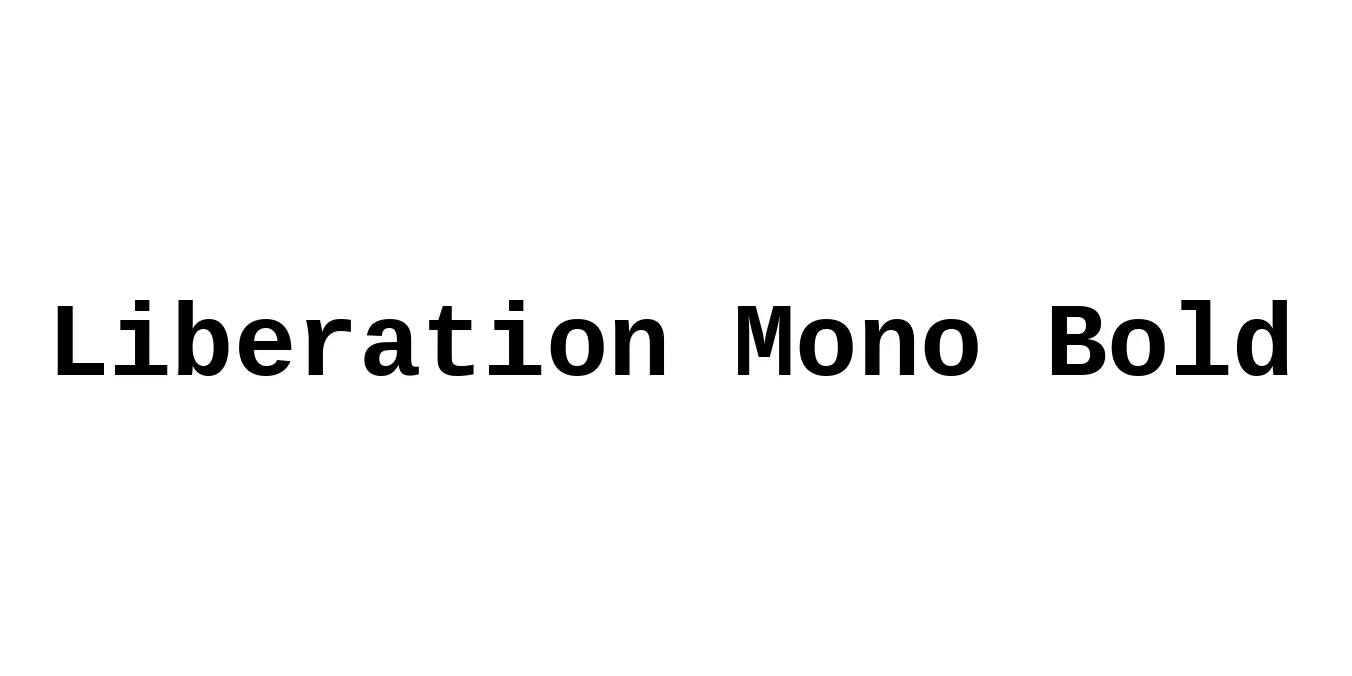
Liberation Mono Bold
Designed by Steve Matteson
| Font Name | Liberation Mono |
| Category | Monospace |
| Designer | Steve Matteson |
| Similar Fonts | Courier New, Consolas, Roboto Mono, IBM Plex Mono |
Liberation Mono Bold is a prominent member of the Liberation font family, which was originally commissioned by Red Hat in 2007. Developed by Steve Matteson of Ascender Corp, these fonts were specifically engineered to be metrically compatible with the most commonly used proprietary fonts on the Windows platform, specifically Courier New. This ensures that documents created with those proprietary fonts render identically when using the Liberation alternatives, making it a cornerstone for open-source document compatibility and cross-platform consistency.
The Bold weight of Liberation Mono enhances its utility in technical environments, offering a strong visual weight that is essential for syntax highlighting and terminal headers. As a monospace typeface, each character occupies the same amount of horizontal space, which is critical for programming, data tables, and any design work requiring strict alignment. Since its release under the SIL Open Font License, it has become a staple in Linux distributions and various professional cross-platform applications.
Liberation Mono Bold Best Uses
Excellent for syntax highlighting in code editors due to its consistent character widths and heavy weight.
Perfect for manuals and system logs where precise alignment of text is mandatory.
Provides high readability in command-line interfaces for developers and sysadmins.
Ensures vertical column alignment in plain-text data reports and tables.